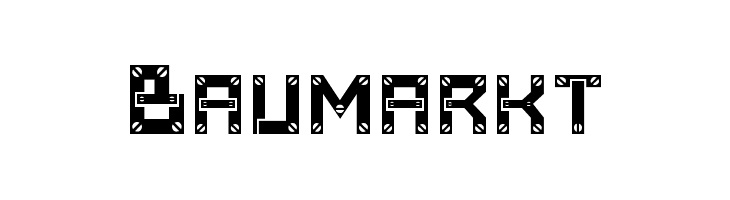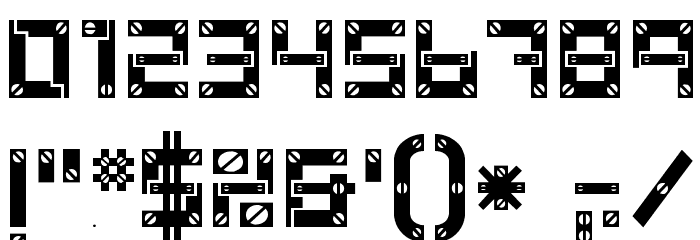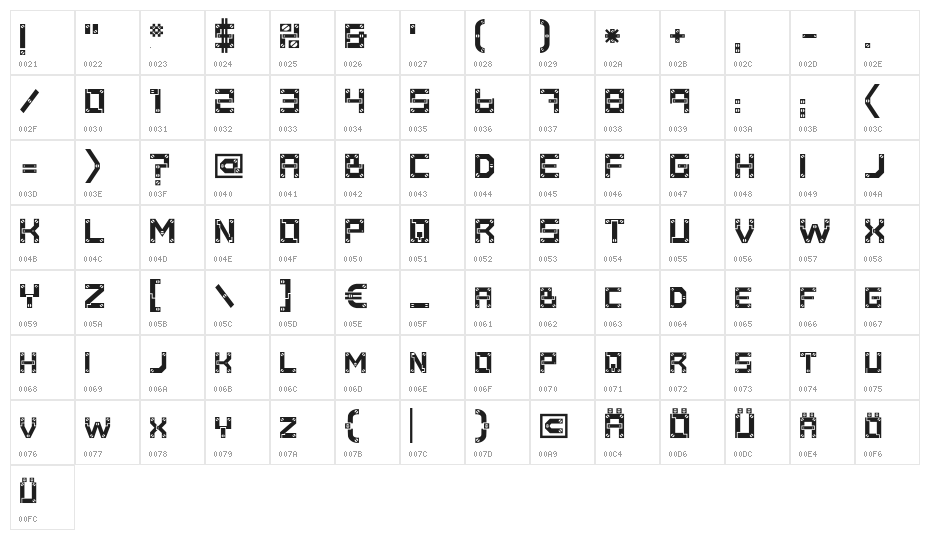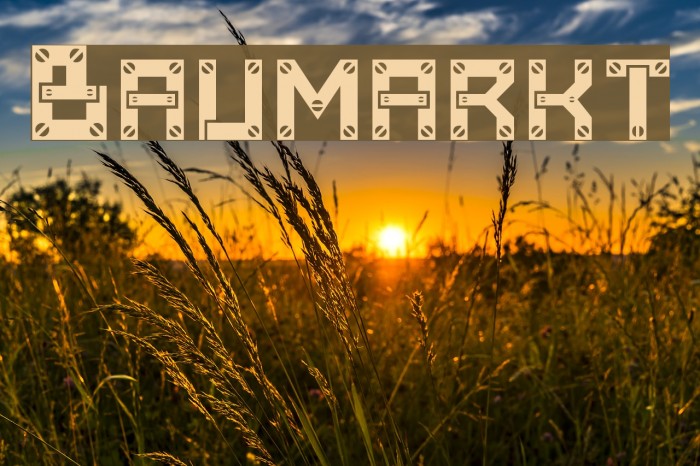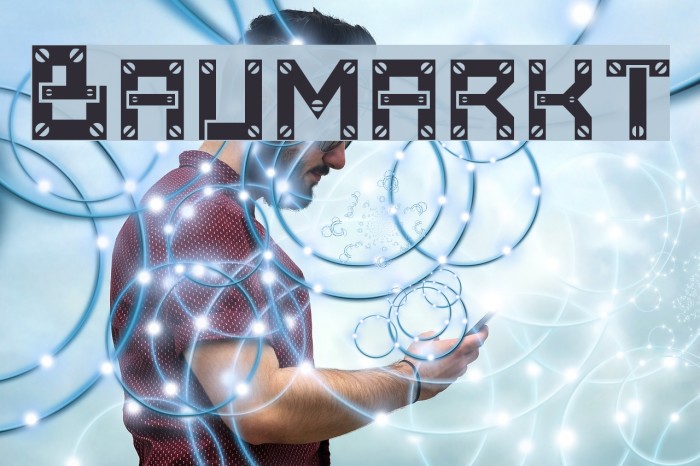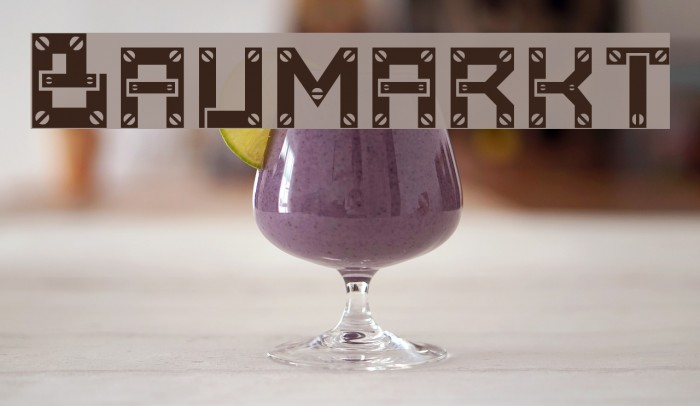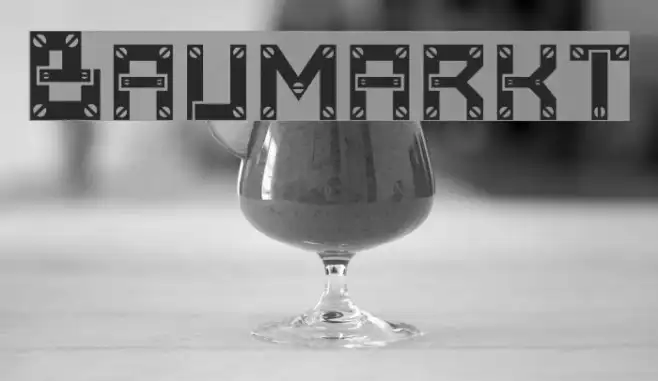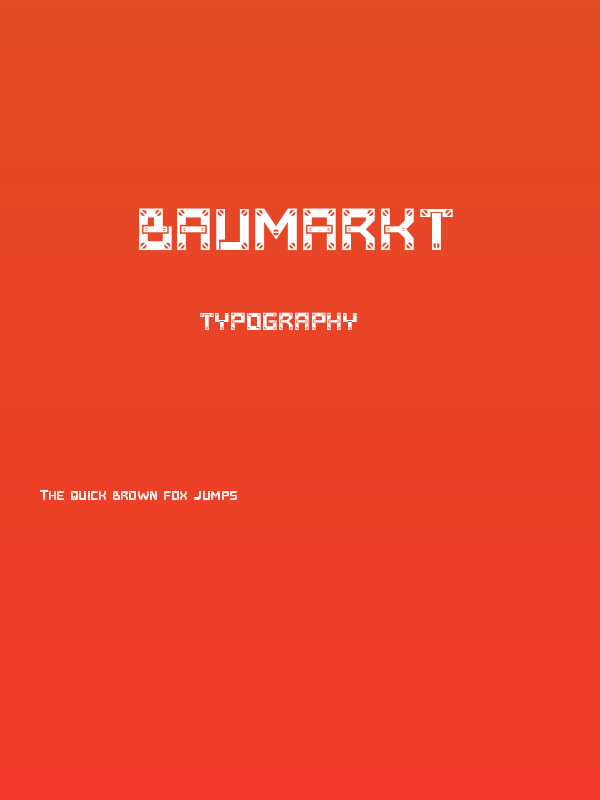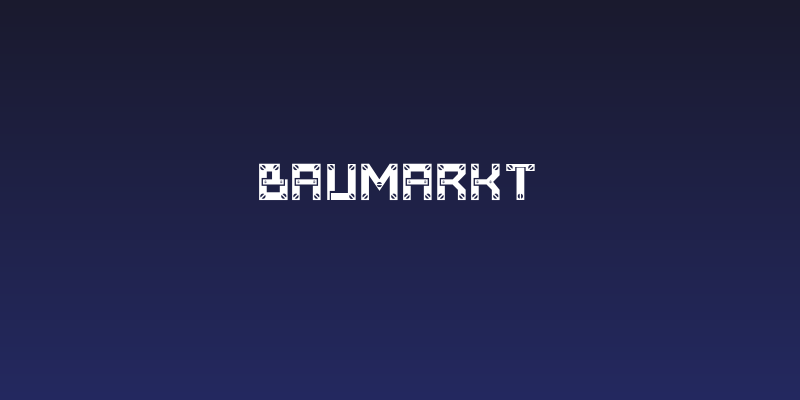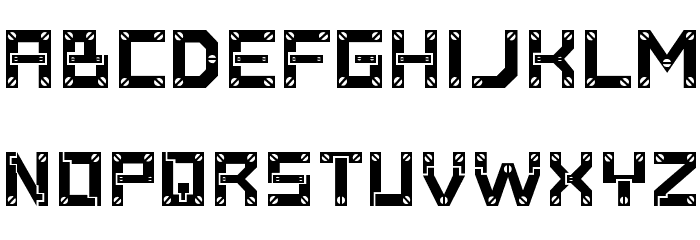
Baumarkt Font
Baumarkt Description
This font features a bold, industrial design with a distinct mechanical aesthetic. Each character is constructed with a blocky, geometric style, incorporating diagonal lines and cut-out shapes that resemble metal plates or construction elements. The uppercase and lowercase letters maintain a consistent structure, emphasizing uniformity and strength. The numbers and special characters follow the same design principles, ensuring a cohesive look across all glyphs. The font's unique style makes it stand out, ideal for projects that require a strong, impactful visual presence.
| Overall Style | Industrial, Mechanical |
| Use Case | Logos, Posters, Signage |
| Proposed Projects | Ideal for branding in construction, engineering, or technology sectors, as well as for posters, signage, and logos that require a strong, industrial look. |